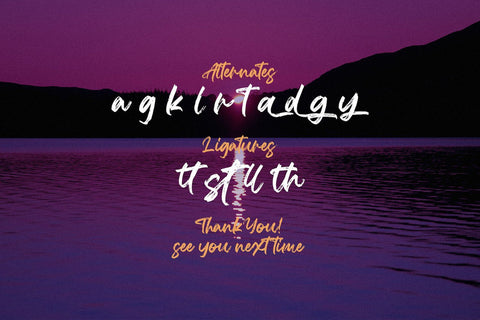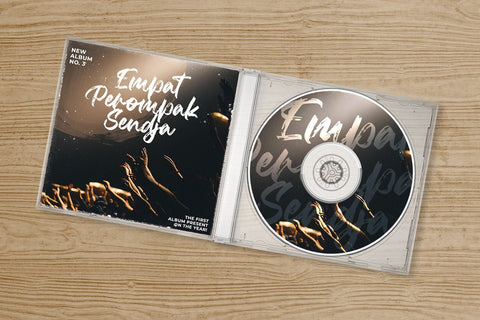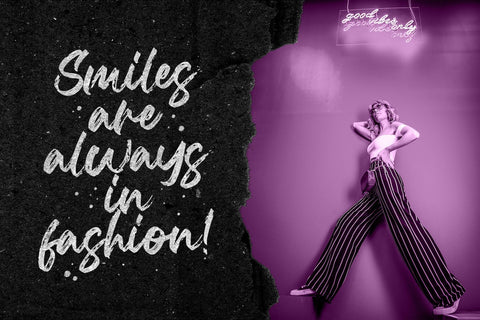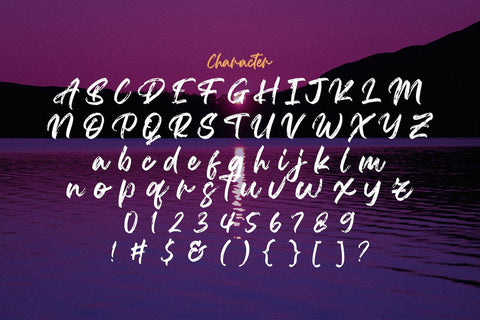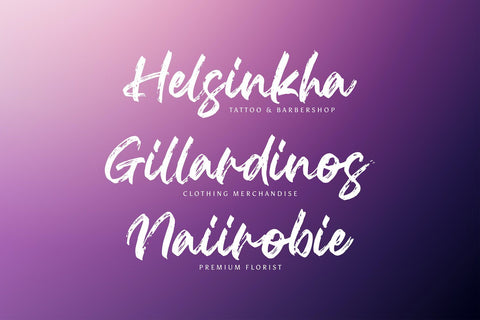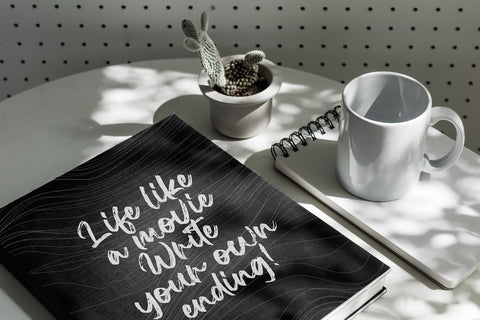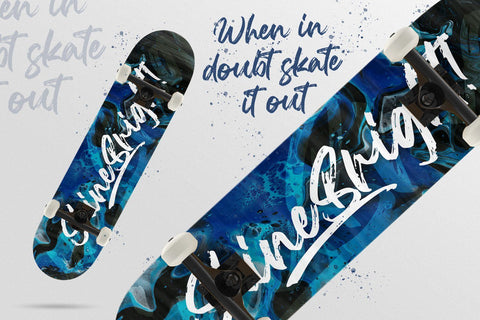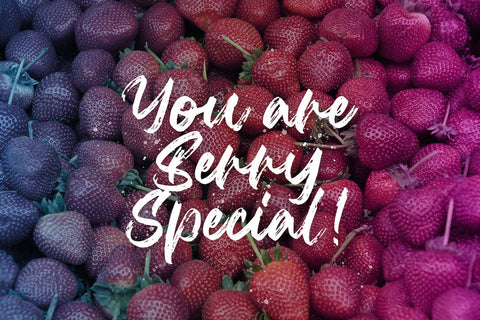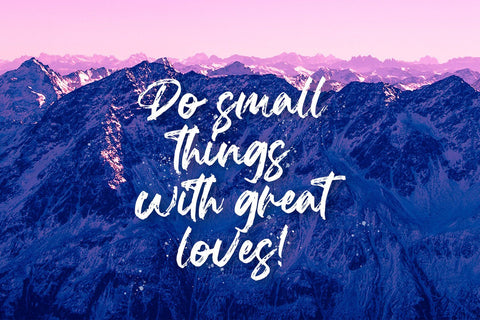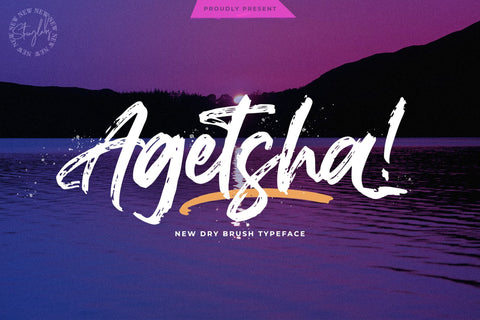
Agethsa - Textured Brush Font
Introducing Agethsa - Textured Brush Font
Agethsa is a textured handbrush font. Get inspired by its unique and beautiful style and add it to your favorite designs!